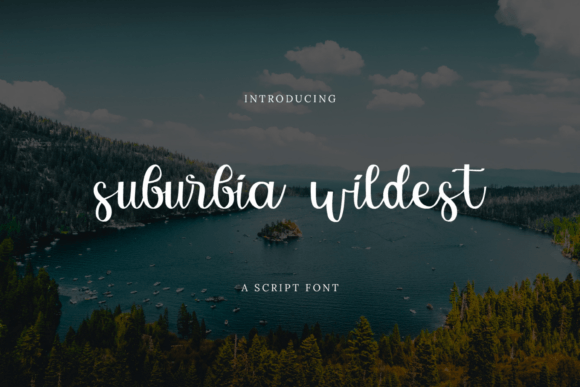
Dive into the realm of "Suburbia Wildest," an enchanting script font inspired by the captivating melodies of Troye Sivan's "Suburbia" and the ethereal essence of "Wildest Dream." Experience the magic of this meticulously crafted script, its characters dancing with a unique blend of elegance and untamed spirit.
Indulge in the allure of "Suburbia Wildest," where the urban meets the untamed, like the edge of a city where untamed nature resides. Its strokes whisper tales of vintage allure, capturing the authenticity of penmanship in its every curve. Unleash your creativity and let "Suburbia Wildest" transport your designs to a realm of old-world charm.
Imagine your words taking shape, enveloped in the captivating aura of "Suburbia Wildest." Postcards adorned with heartfelt messages, greeting cards imbued with a touch of nostalgia, and lettering that exudes an air of authenticity. With every stroke, "Suburbia Wildest" transforms your creations into timeless masterpieces.
Feel the surge of inspiration as you embark on your lettering journey with "Suburbia Wildest." Its versatile nature lends itself to a myriad of applications, from captivating headlines to enchanting logos. Let your imagination soar as you weave words into works of art.